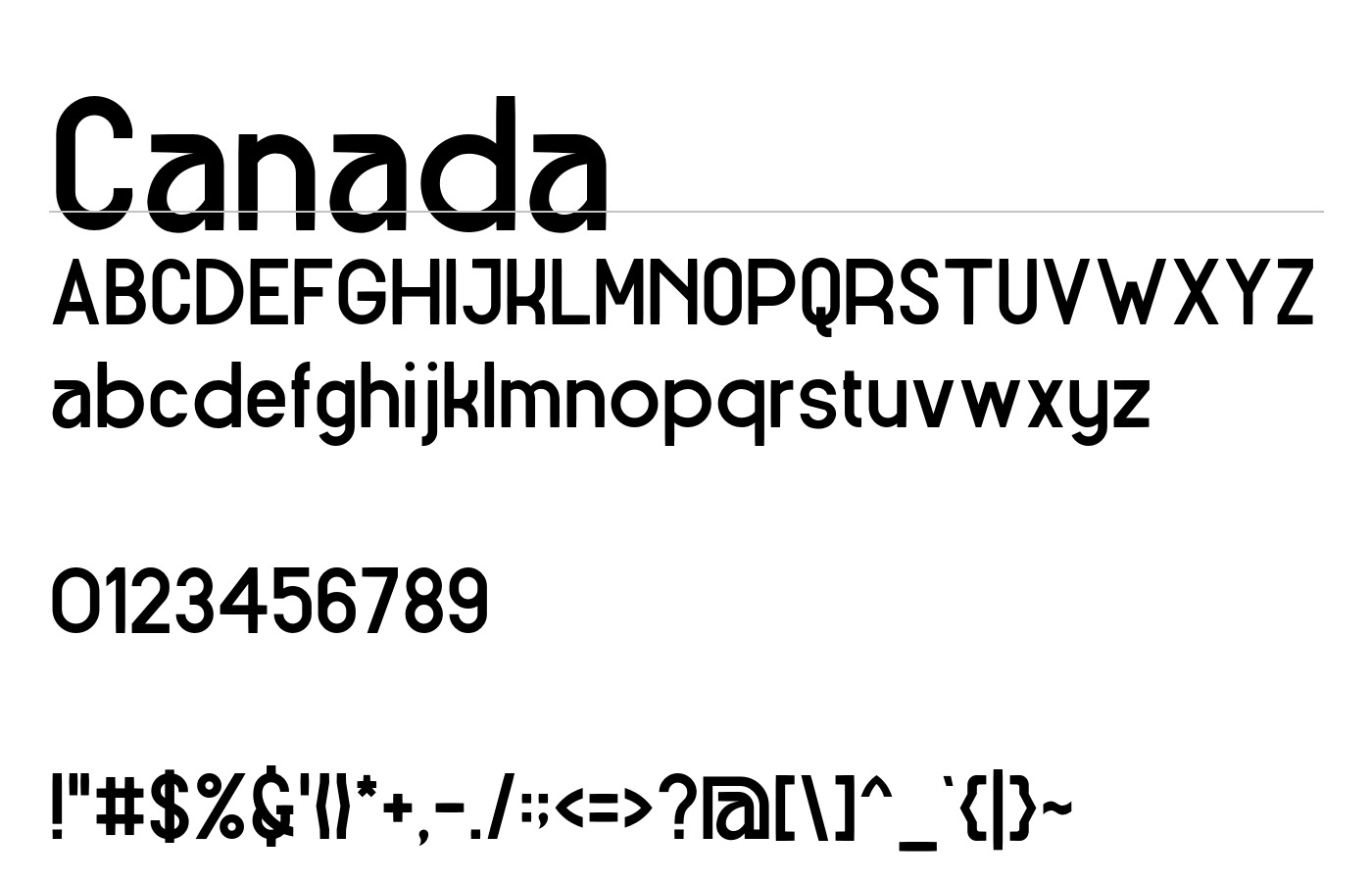
Canada Font is a clean, modern sans serif with a slightly condensed and upright structure, making it highly readable and versatile. Its consistent stroke weight and open letterforms give it a friendly yet professional look, suitable for contemporary branding, editorial use, and digital interfaces where clarity and a straightforward style are key. This font works well in headlines and body text alike, providing a balanced, confident presence without unnecessary flair.
Canada Font